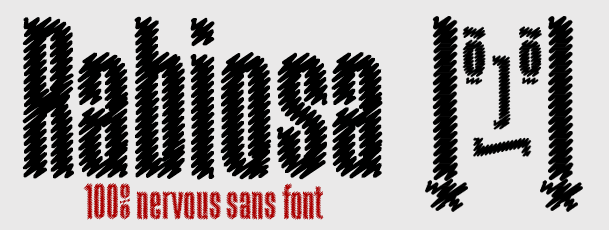
Download and enjoy this free rabiosa font. Cool typeface to showcase your designs in a modern way. Download this free typeface from the original source of Font Space. This is absolutely fancy font so you can easily make world-class designs.